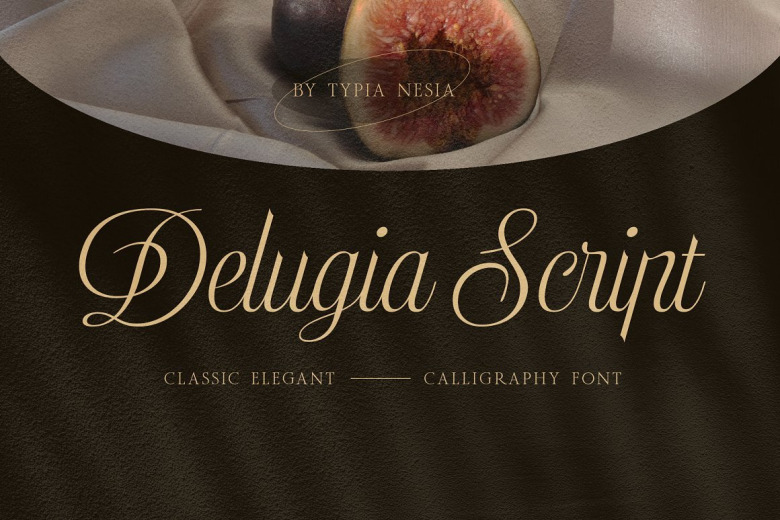
Delugia Script Font
Delugia Script is Classic Elegant Copperplate Calligraphy Font. The elegant flow and classic calligraphy style makes it perfect for royal branding, wedding design, blogging, social media, restaurant branding, invitation cards or simply use it in your next design project. Thank you and hope you’re having fun with Delugia Script ! Happy creating!